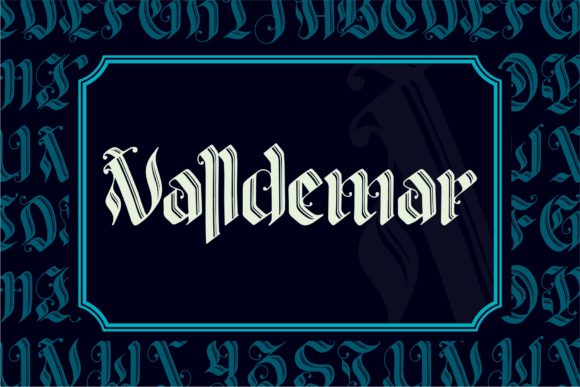
Welcome to the realm of Valldemar Font, a blackletter marvel that commands attention and stirs emotions. Beyond its striking appearance, it's a versatile font, ready to elevate your creative projects to new heights.
Crafted by the skilled hands of goodjavastudio, Valldemar is more than just a font. It's an artistic expression that dances across your designs, leaving a trail of elegance and intrigue. Its intricate letterforms evoke a sense of history, transporting you to a bygone era when words held power and beauty.
With Valldemar, you'll unlock a font that transcends time, blending vintage charm with contemporary appeal. It's a font that ignites inspiration, empowering you to create designs that resonate and captivate.